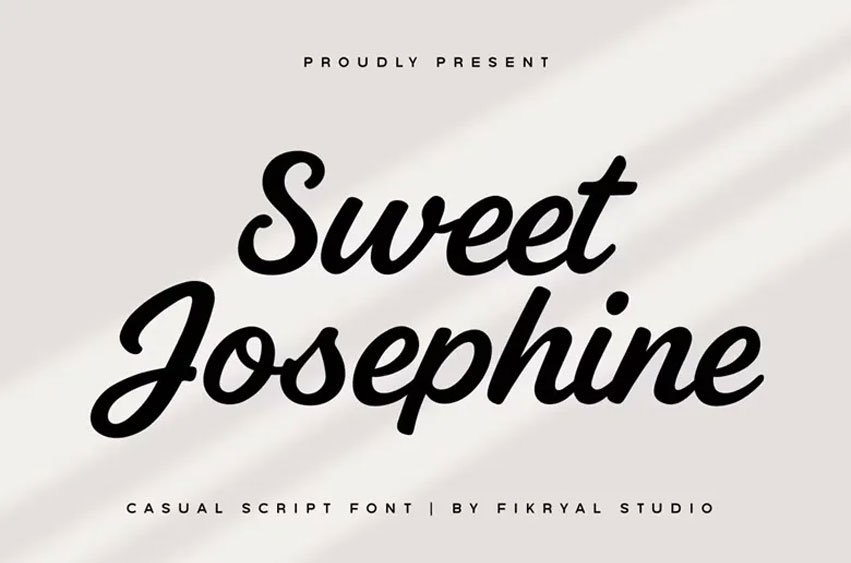
Sweet Josephine Font
Sweet Josephine Font is a friendly, bold script typeface that combines a contemporary feel with a warm, handwritten look. Its relaxed and smooth strokes give your creations and natural flow making it a great choice for logo design, branding, packaging, quotes and social media content.
It comes with a variety of ligatures and alternate characters giving you the flexibility to make different, expressive designs that look authentic and unique.